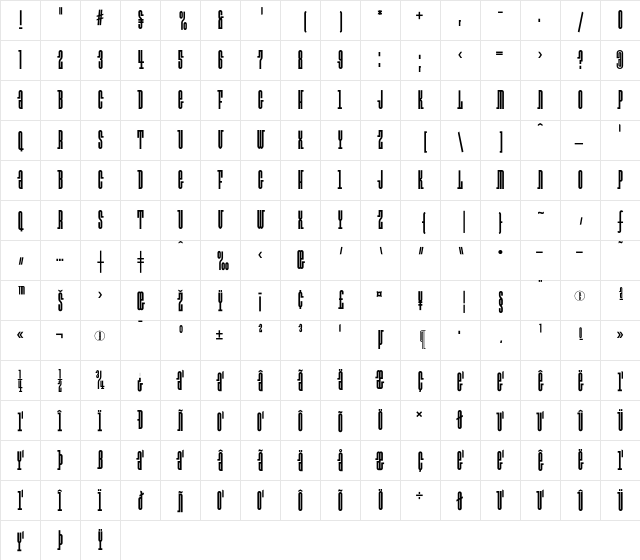
Exit Bold
Design Context for Exit Typeface
Exit is a composed and adaptable typeface that performs quietly and consistently across a wide range of design contexts. The heavy weight commands attention and anchors typographic hierarchies.